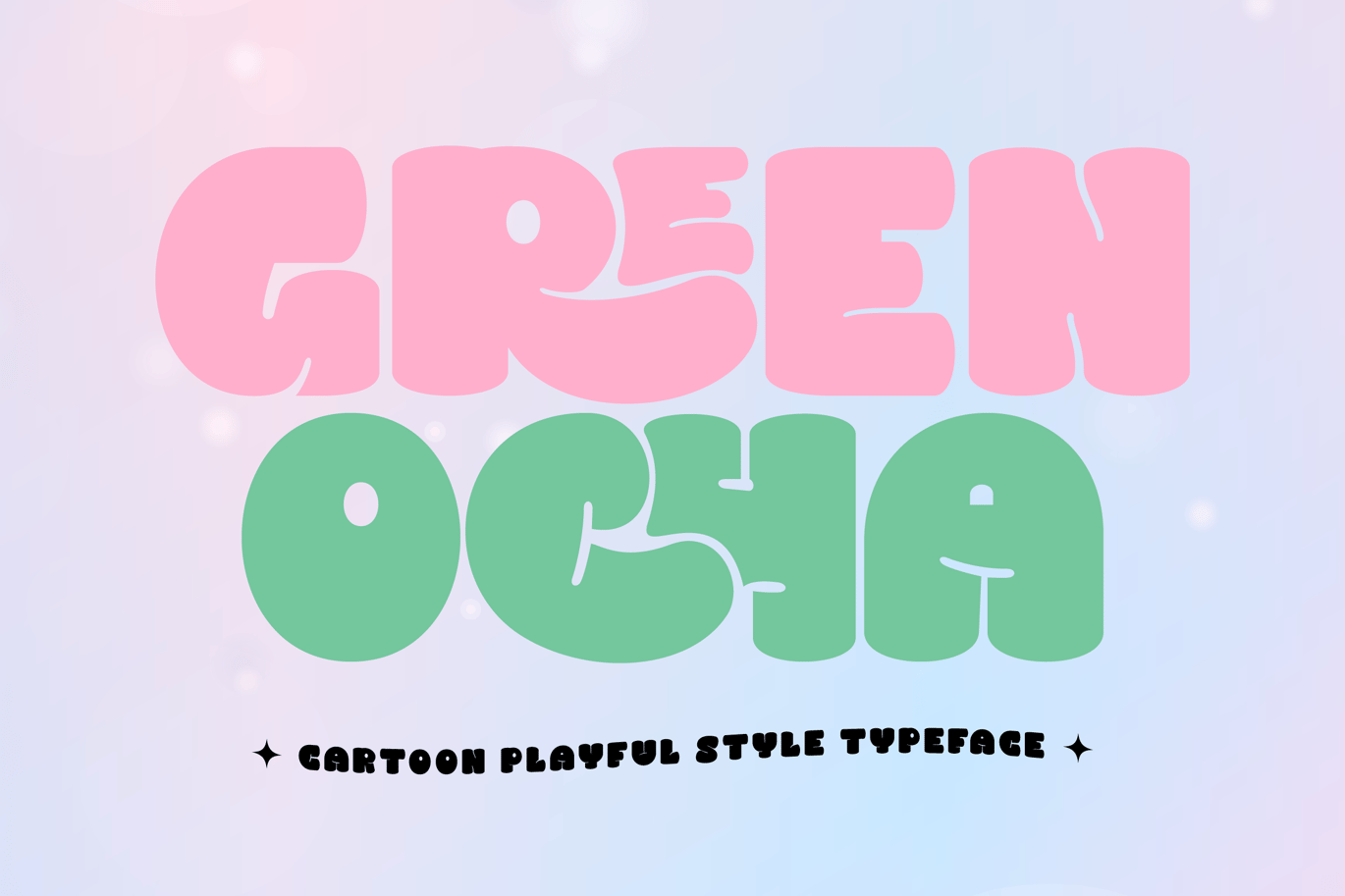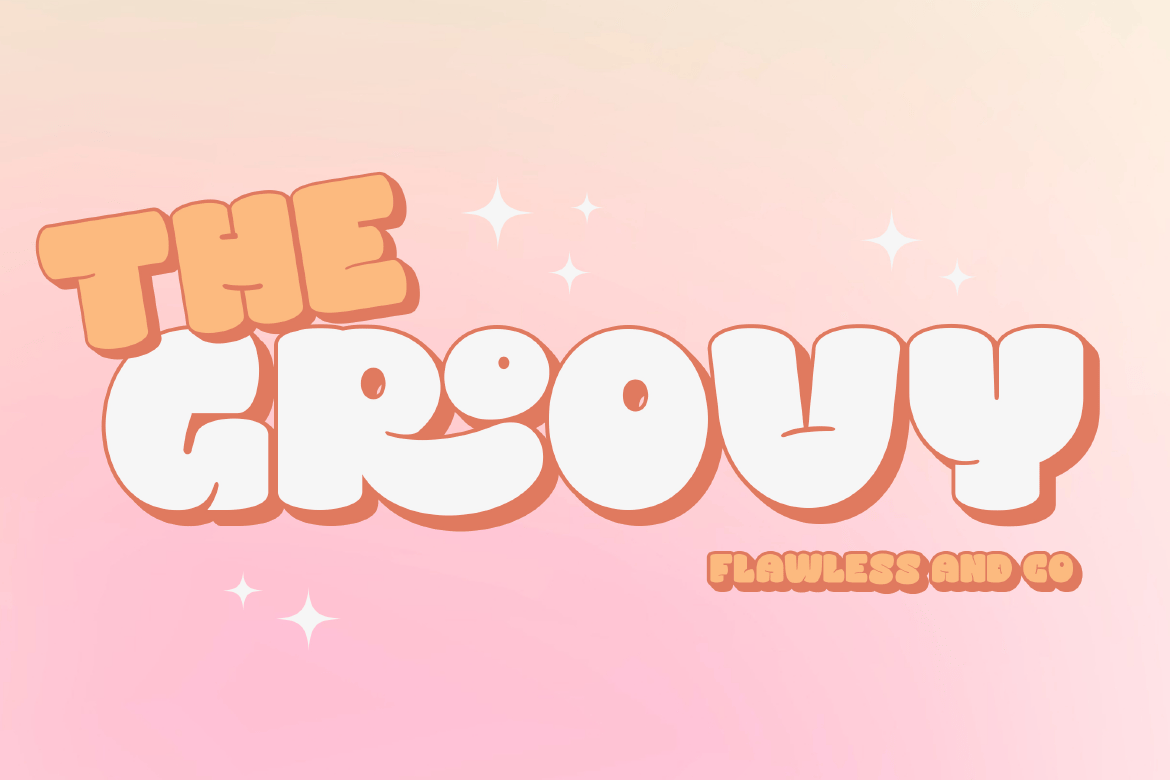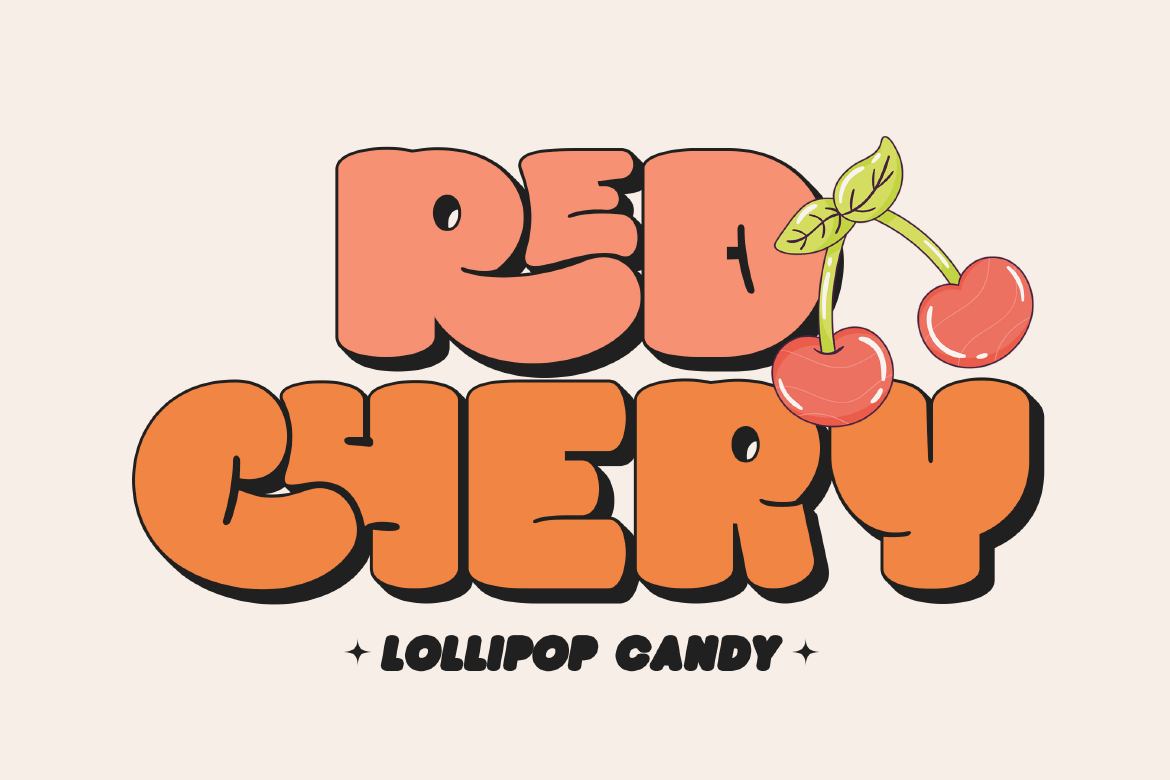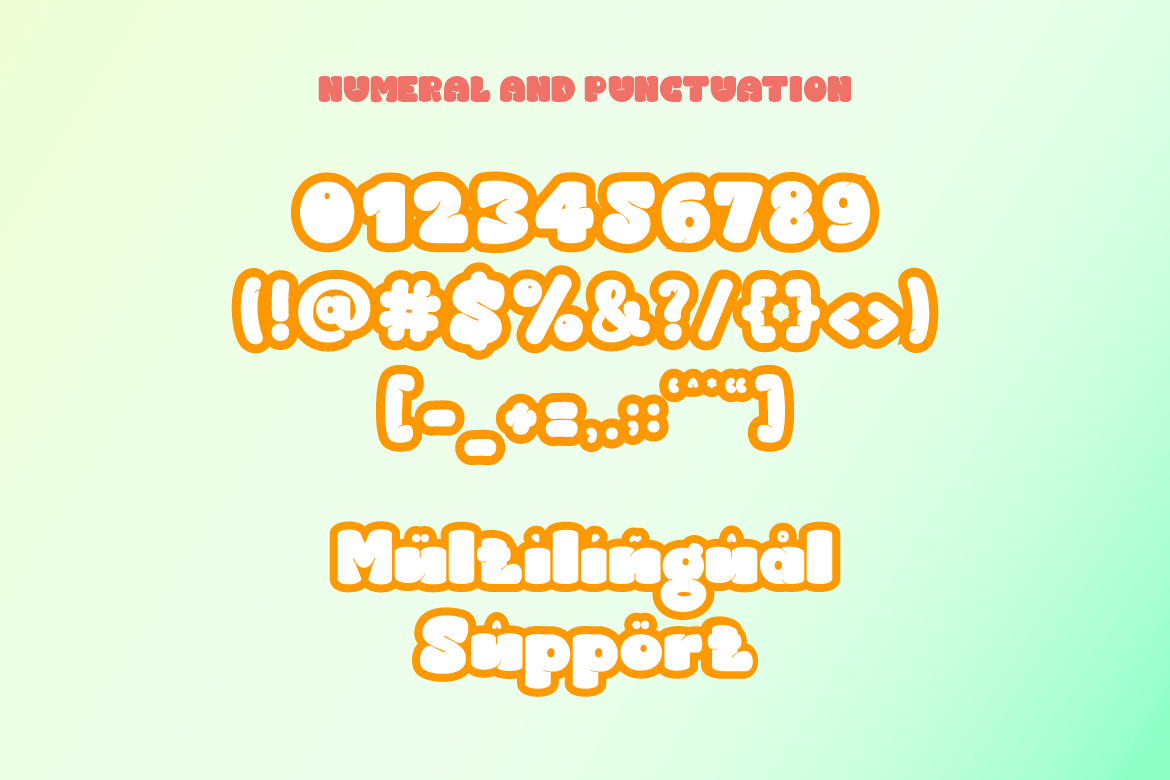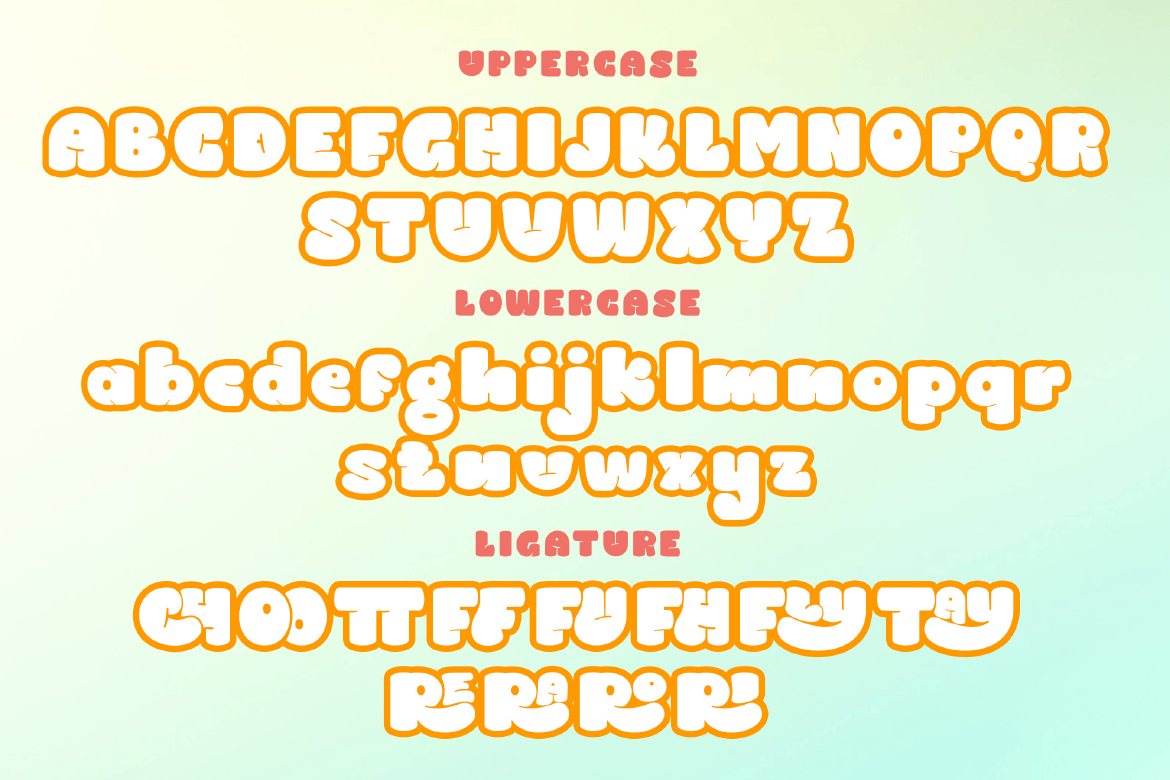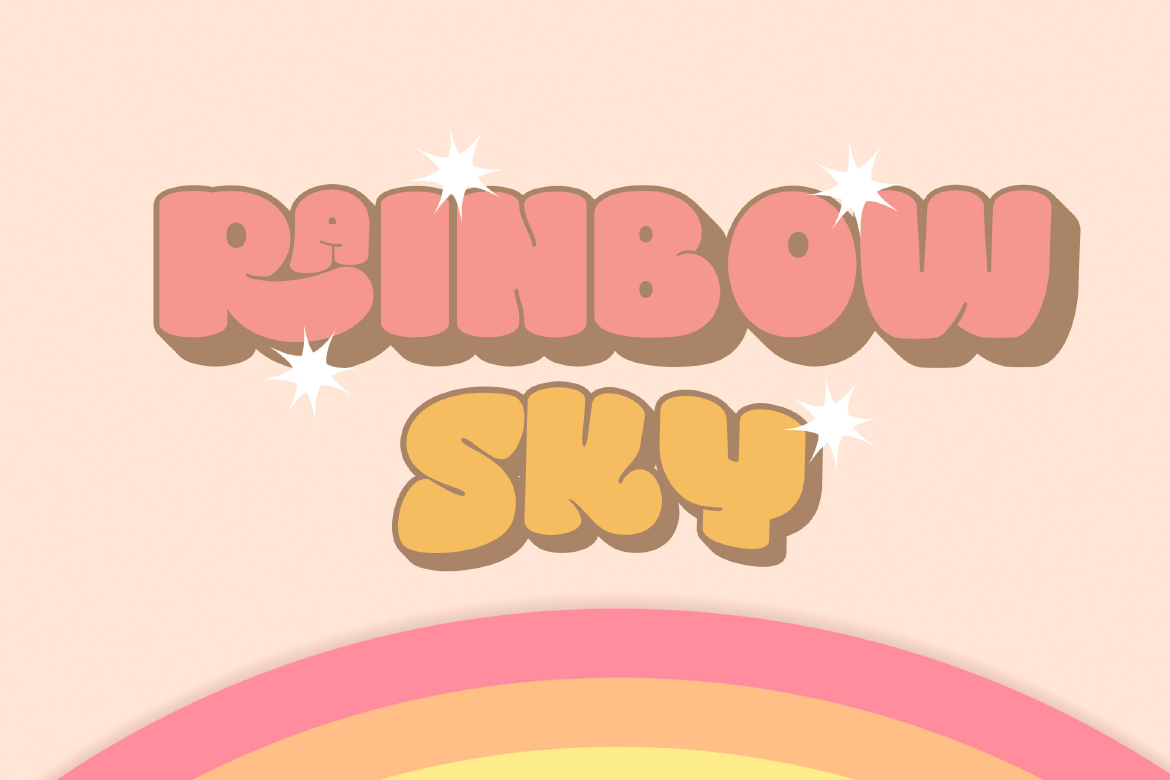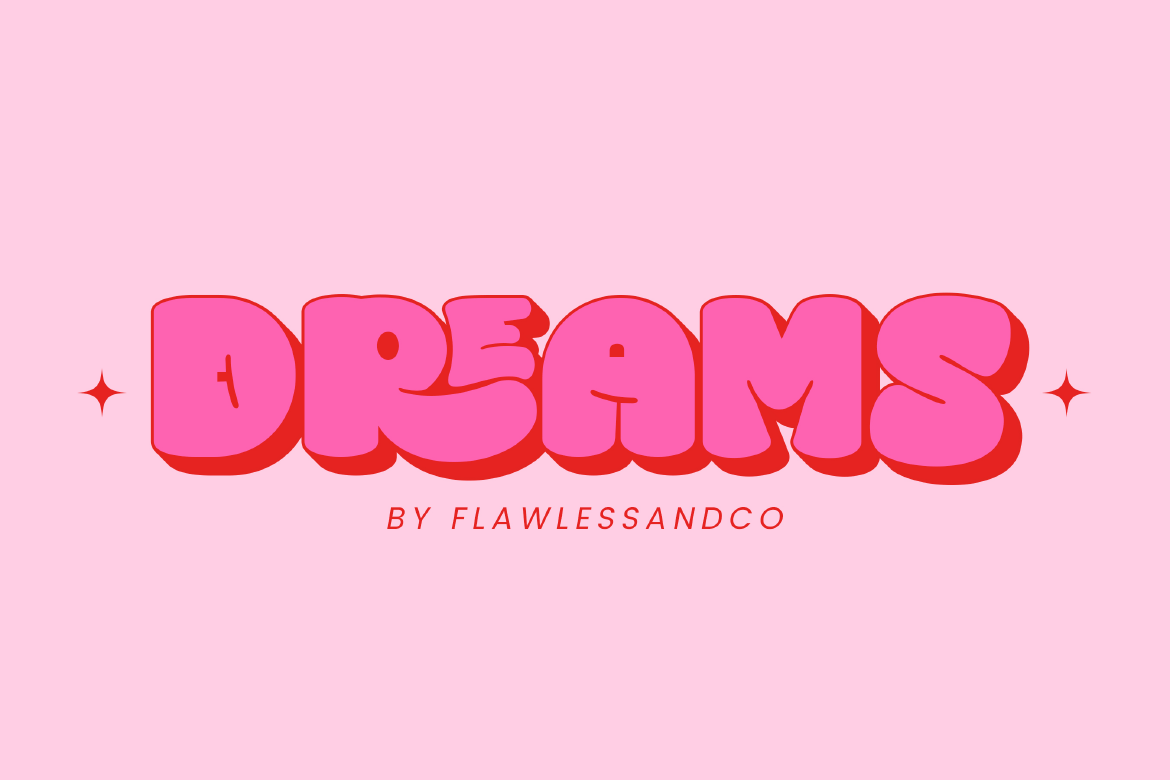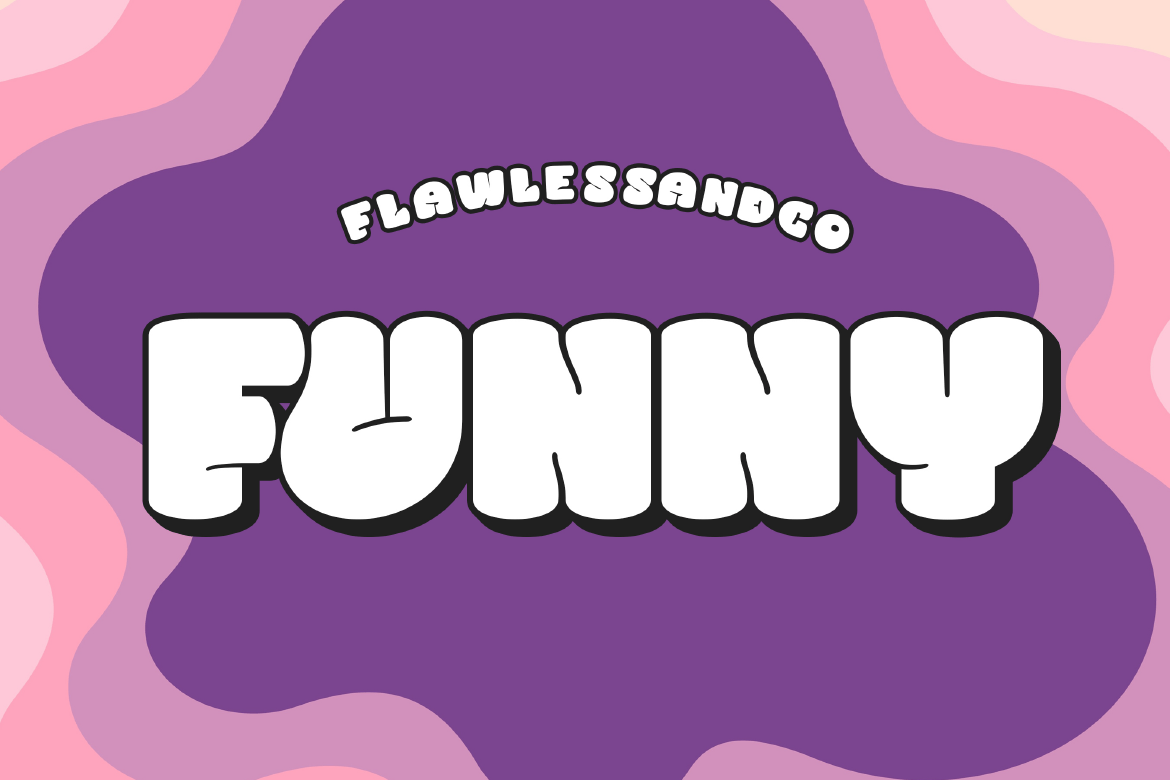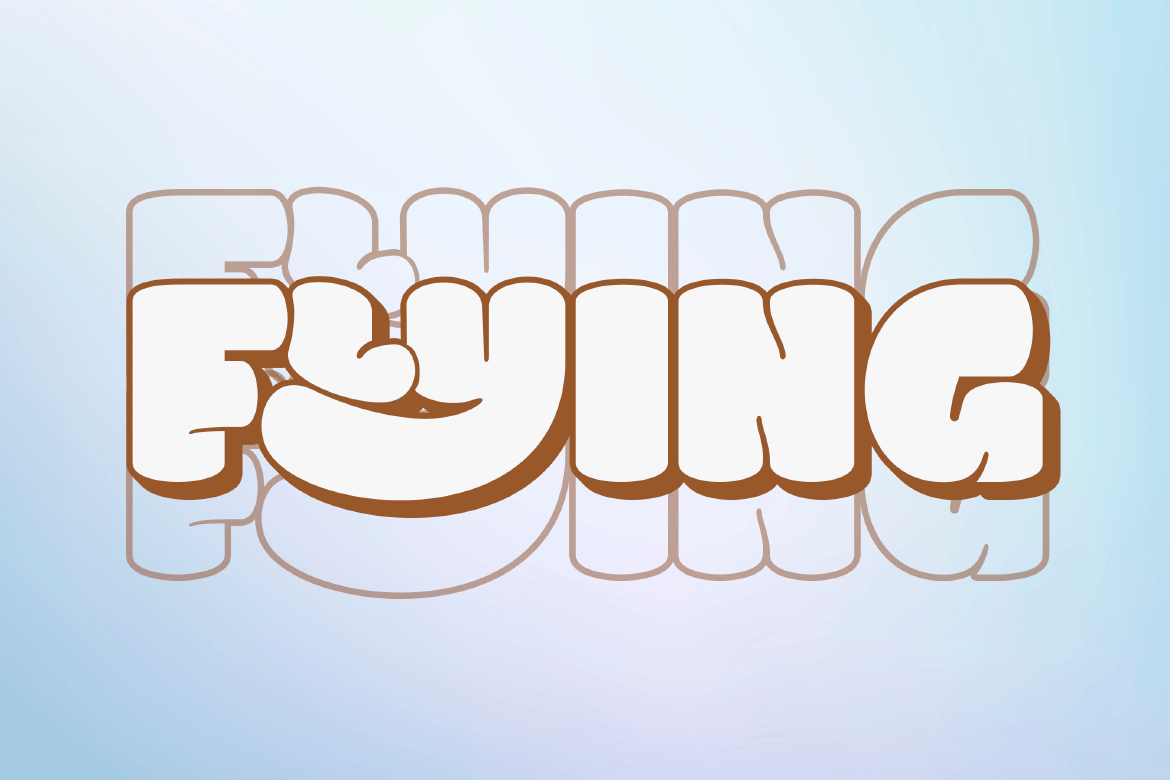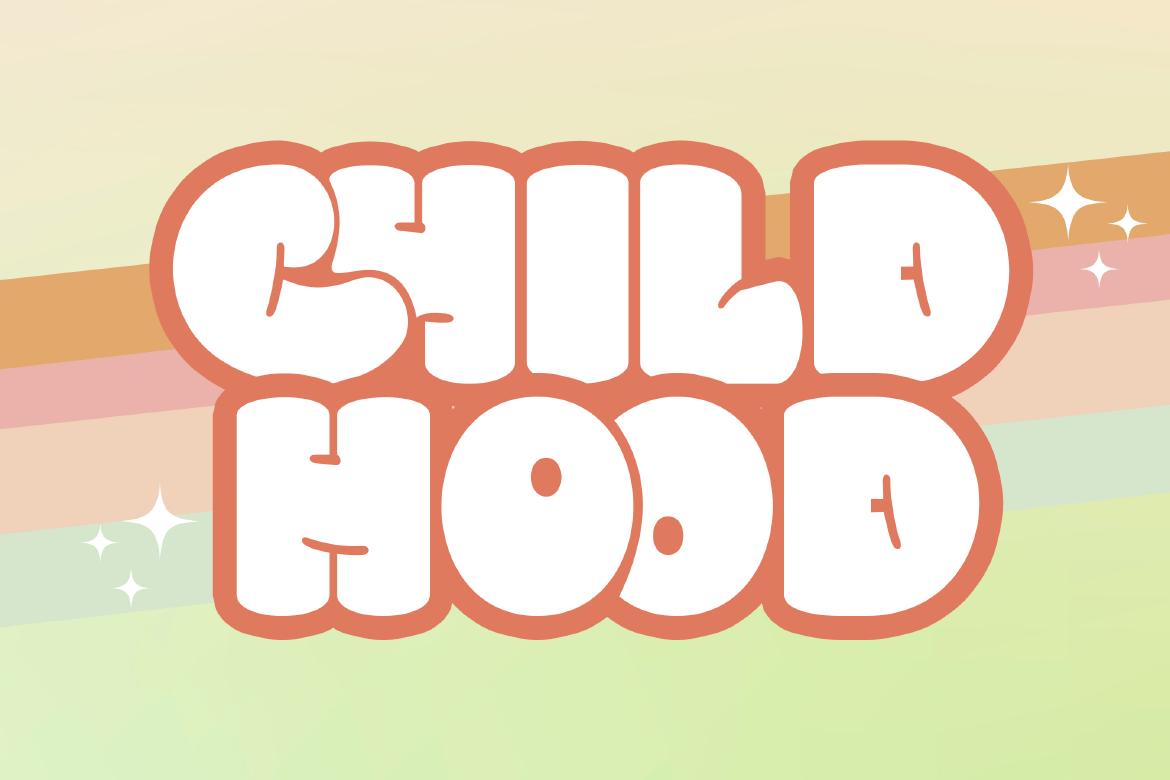
Green Ocha – Cartoon Font
Introducing “Green Ocha” is a cartoon playful style typeface. Step into a world of whimsy and fun with “Green Ocha,” a playful cartoon font that’s bursting with groovy energy. With its quirky design and cheerful demeanor, Green Ocha adds a splash of personality to any project, whether it’s for children’s books, comic books, or creative branding.